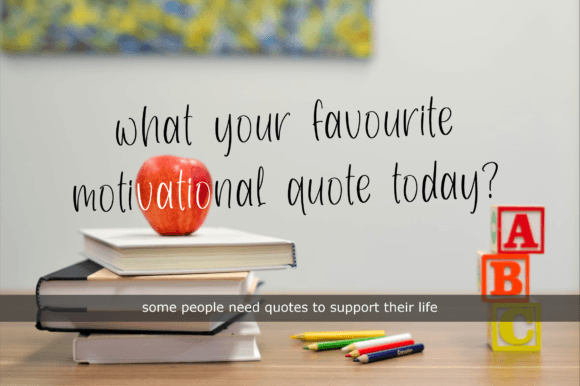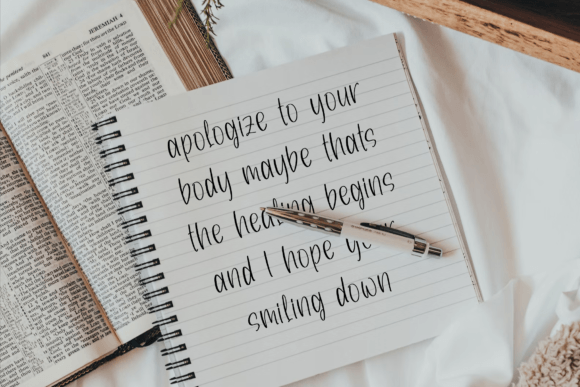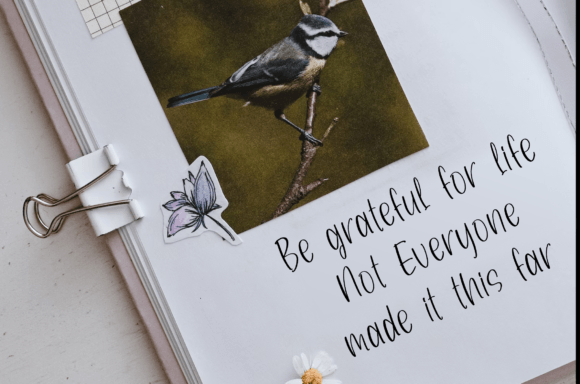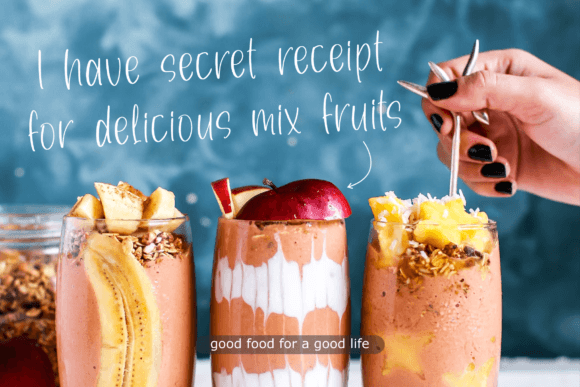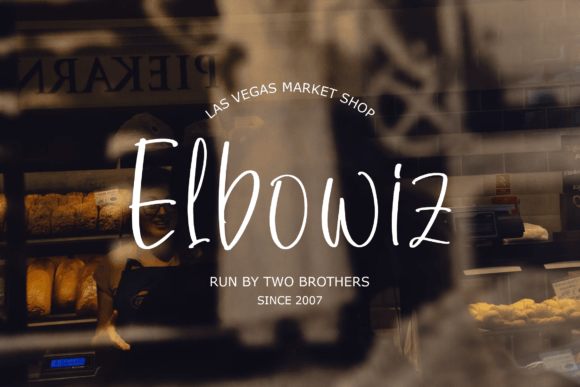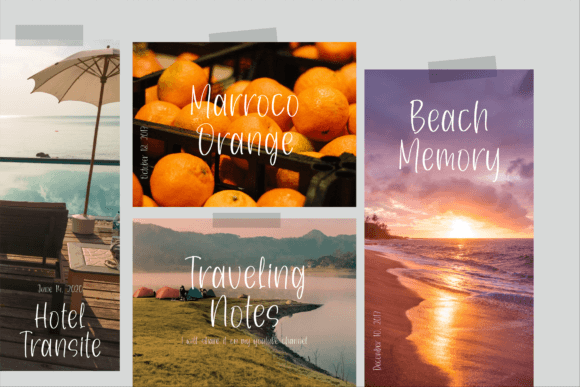
Introduction to Seriously Imagine Font
Have you ever found yourself scribbling down a brilliant idea in the middle of the night, only to regret not capturing the exact font you used? That’s exactly what happened to many designers who stumbled upon the Seriously Imagine Font, a stunning natural handwritten font that’s been making waves in the creative community.
With its elegant and refined touch, this font is perfect for adding a personal and human feel to any project, from logos and branding to homeware designs and product packaging. Its versatility and high quality make it an invaluable design resource for creatives looking to elevate their work.
Whether you’re working on a freelance project or simply want to give your personal projects a professional touch, the Seriously Imagine Font is a valuable addition to your design toolkit. And the best part? It’s available for free download, making it a treasure trove for designers on a budget.
Key Features of Seriously Imagine Font
- High-quality, professional design for creative projects
- Transparent background for seamless integration into designs
- Resolution: 300 DPI, ensuring crisp and clear typography
- Size: Supports a wide range of font sizes, from 8pt to 1000pt
- Unique characteristics: Includes 1000+ glyphs, 50+ font styles, and advanced OpenType features
Honest Review: Seriously Imagine Font
I recently stumbled upon the Seriously Imagine Font and I must say it’s a great addition to my design resources. This font is perfect for creating a unique and eye-catching visual identity for my creative projects. One of the things I appreciate most about this font is its versatility and flexibility, making it suitable for various design applications.
One of the standout features of the Seriously Imagine Font is its high-quality design, which gives it a professional and polished look. The font is available for free download, which is a huge plus for designers who are on a tight budget. Additionally, the transparent background makes it easy to combine with other design elements.
- May not be suitable for formal or conservative designs
- Some users may find the font too playful or whimsical
Overall, I’m impressed with the Seriously Imagine Font and I would definitely recommend it to fellow designers. Its unique design and versatility make it a valuable addition to any design resource library.
The Seriously Imagine Font is a free design resource ideal for any creative project. With its high-quality and unique design, it’s perfect for adding a touch of elegance to your work. This guide will walk you through the process of using the Seriously Imagine Font in various design applications.
Use the Seriously Imagine Font with a transparent background to create a seamless design experience.
Experiment with different font sizes and styles to achieve the desired effect.
The Seriously Imagine Font is perfect for creating:
Wedding invitations
Business cards
Marketing materials
Alternatives to Seriously Imagine Font
Comic Sans MS is a classic, playful font perfect for creative projects that require a lighthearted tone. It features a transparent background and is ideal for presentations, flyers, and other design materials. This font is a great alternative to Seriously Imagine Font for projects that need a friendly and approachable feel.
Comparison: Comic Sans MS is more informal and less stylized than Seriously Imagine Font, but still conveys a sense of approachability and friendliness.
Great Vibes is a high-quality, modern script font ideal for creative projects that require a sophisticated and elegant touch. It features a transparent background and is perfect for use in logos, branding materials, and other design resources. This font is a great alternative to Seriously Imagine Font for projects that need a sense of luxury and refinement.